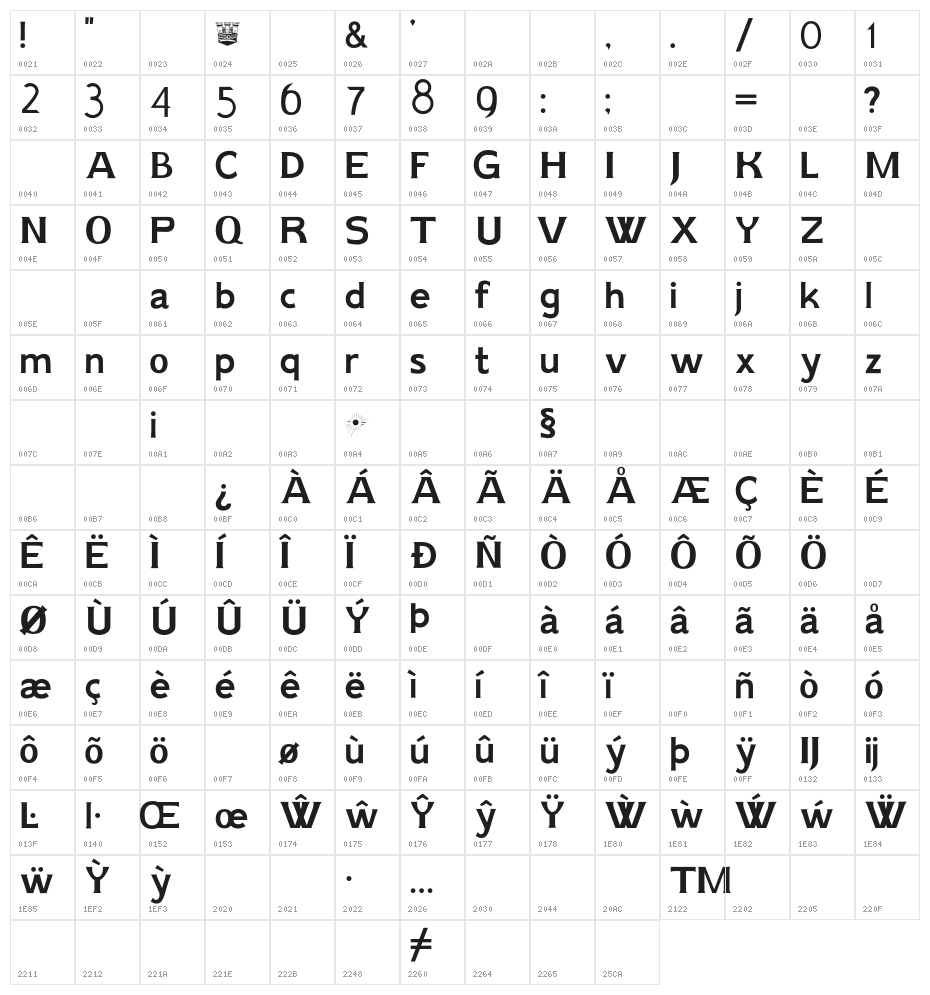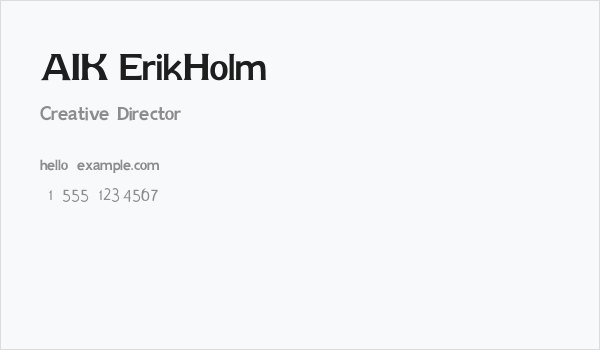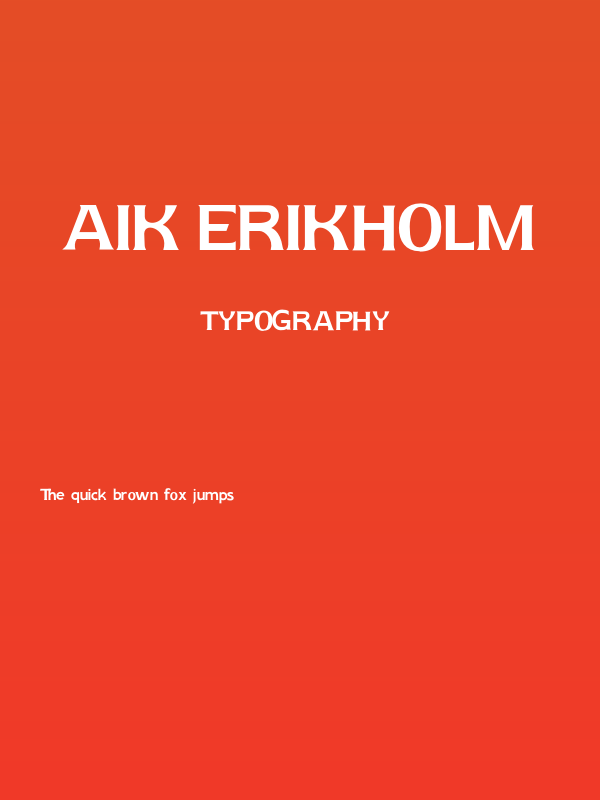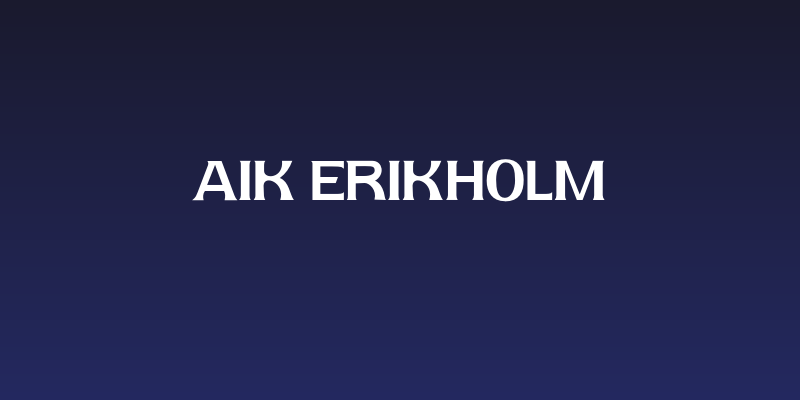
AIK-ErikHolm Font
AIK-ErikHolm Description
This font features a bold and modern design with clean, sharp lines and a strong presence. The uppercase letters are well-defined with a slight geometric influence, while the lowercase letters maintain a consistent style that complements the uppercase. The numerals are clear and easy to read, making them suitable for various applications. Special characters are included, adding versatility to the font's use. The overall appearance is professional and contemporary, making it ideal for projects that require a strong visual impact.
| Proposed Projects | Ideal for branding, advertising, headlines, and digital media projects. |